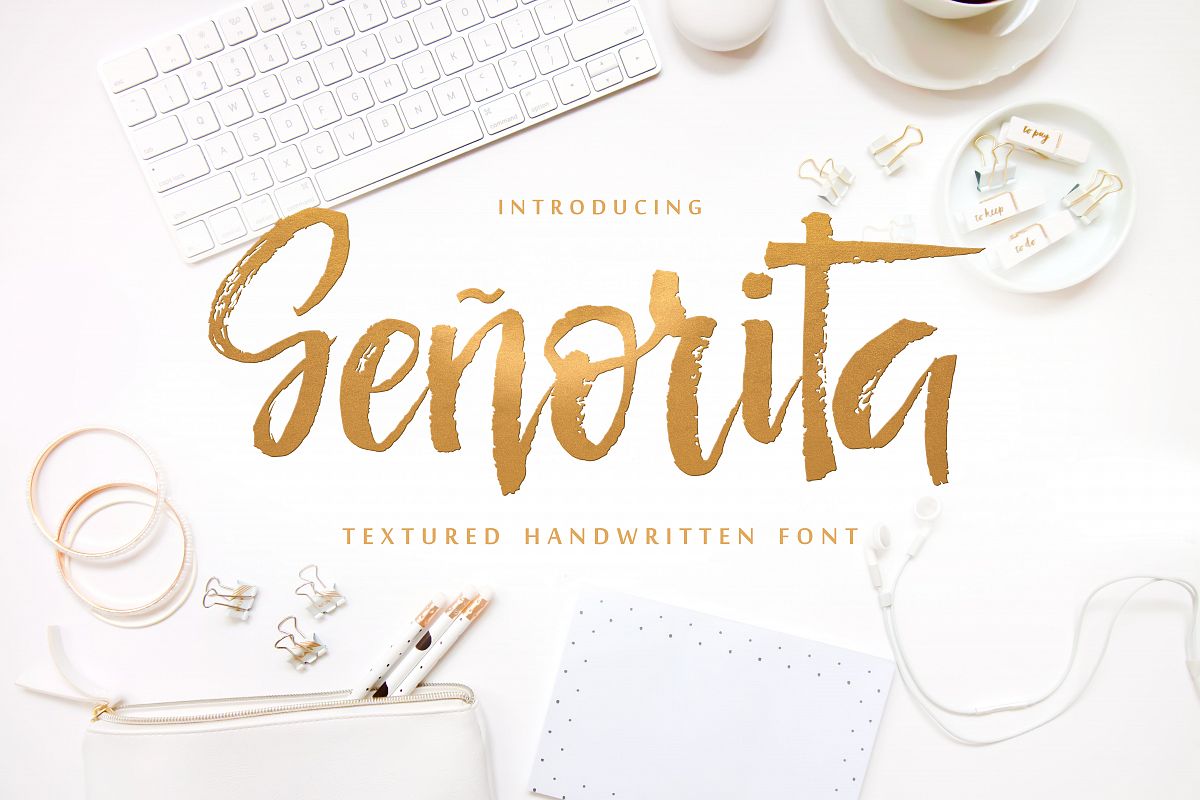
Señorita Handwritten Textured Font
Introducing the new hand-drawn script Señorita.
This font was handwritten with a dry brush and will look great on branding design, posters, apparel, for logotype, website header, fashion design, wedding card design and any more.